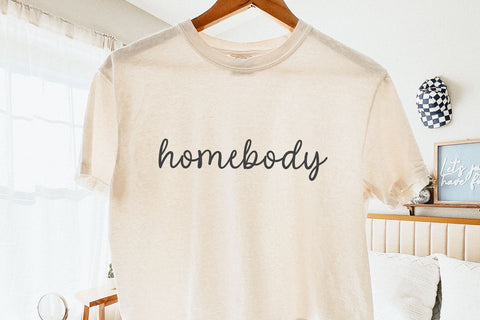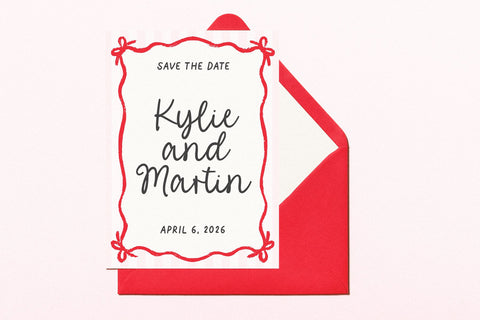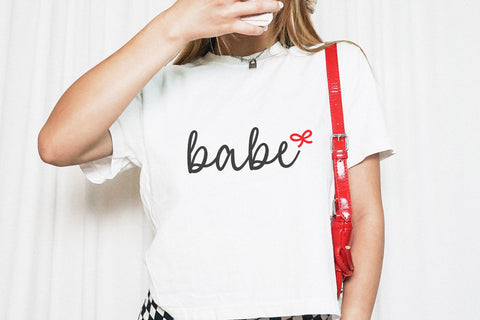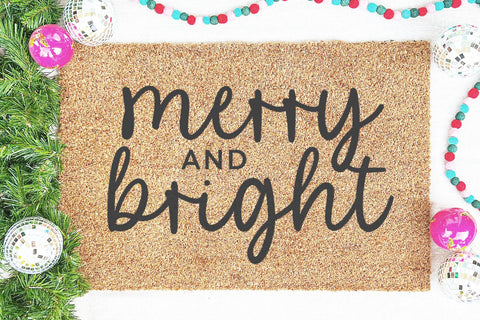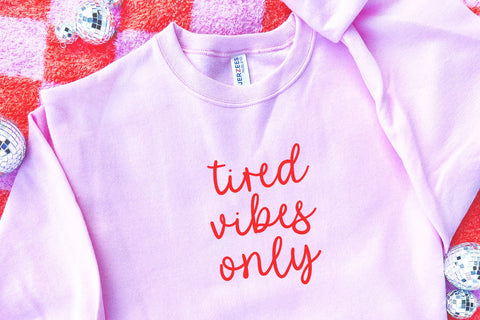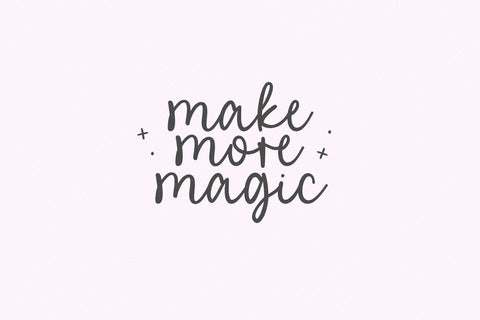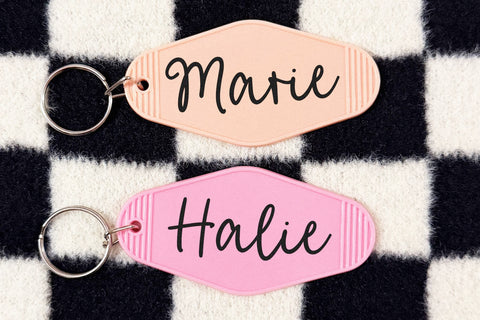
Mable Lane - Handwritten Script Font
Mable Lane is a cute handwritten script font.
This font is perfect for cricut projects, canva, banners, logos, shirts, svg files, wedding decor, invitations and more!